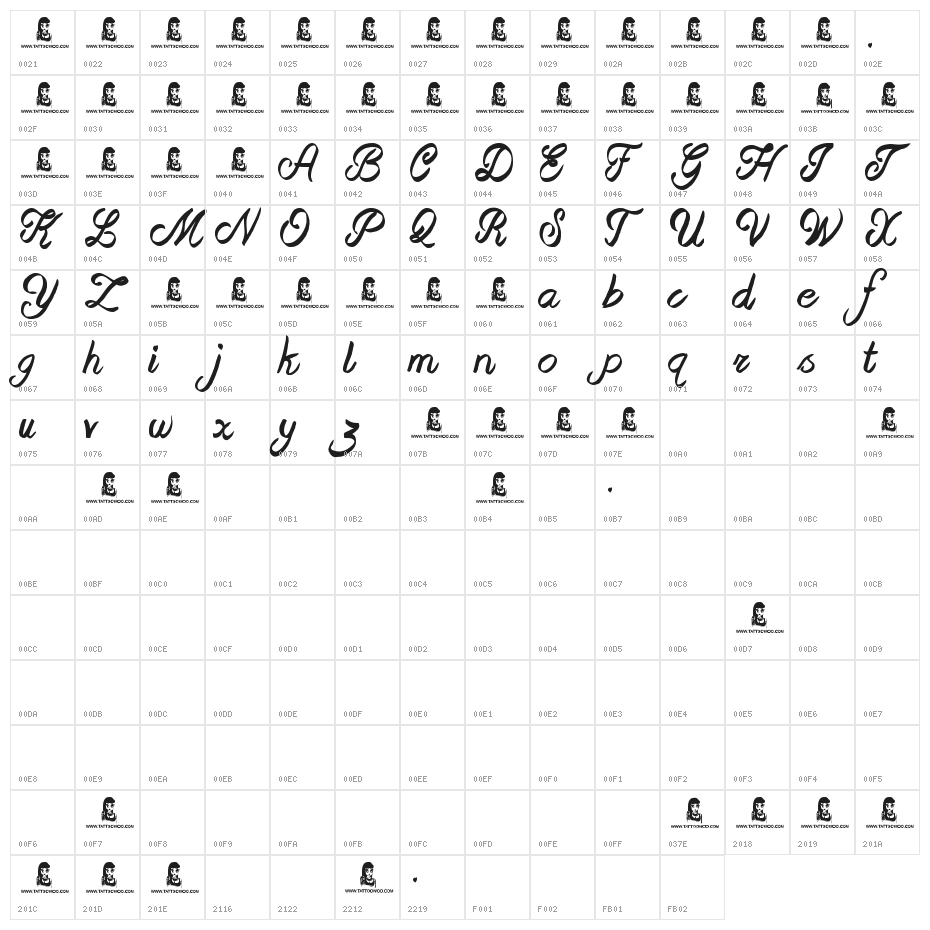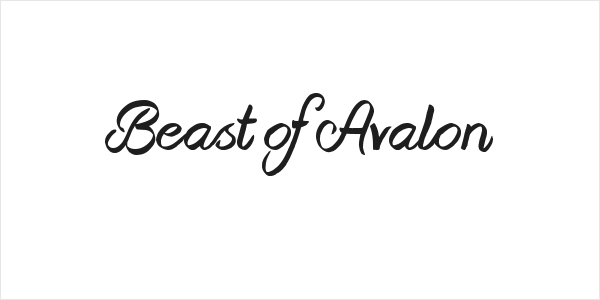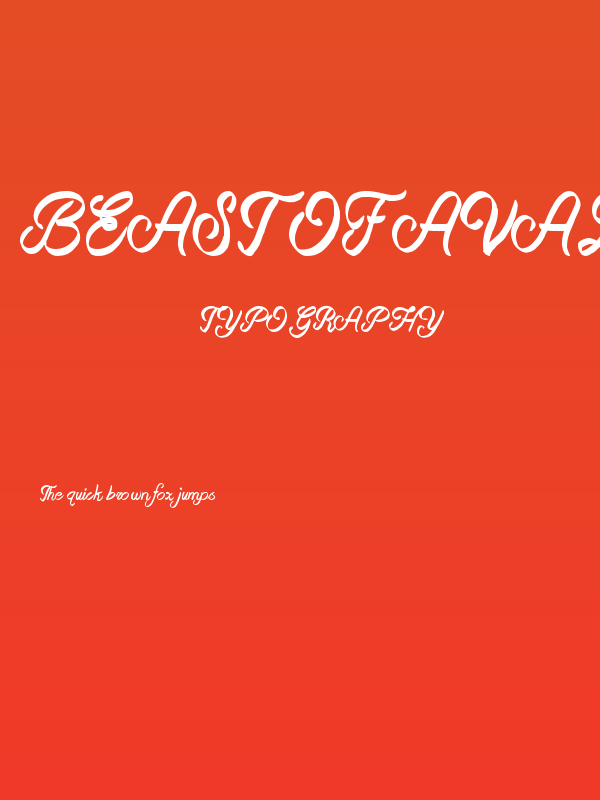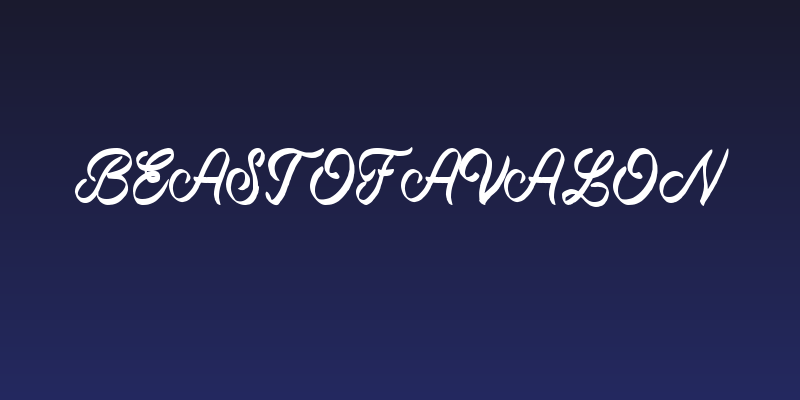
Beast of Avalon Font
Beast of Avalon Description
This font features a bold, flowing script style with elegant curves and a dynamic presence. The uppercase letters are characterized by their intricate loops and swirls, giving them a sense of movement and grace. The lowercase letters maintain a consistent style, with smooth, rounded forms that complement the uppercase. The overall appearance is both artistic and sophisticated, making it suitable for creative and expressive designs. The font's boldness ensures readability while maintaining its decorative flair.
| Proposed Projects | Ideal for wedding invitations, branding, logo design, and artistic projects where a touch of elegance and creativity is desired. |